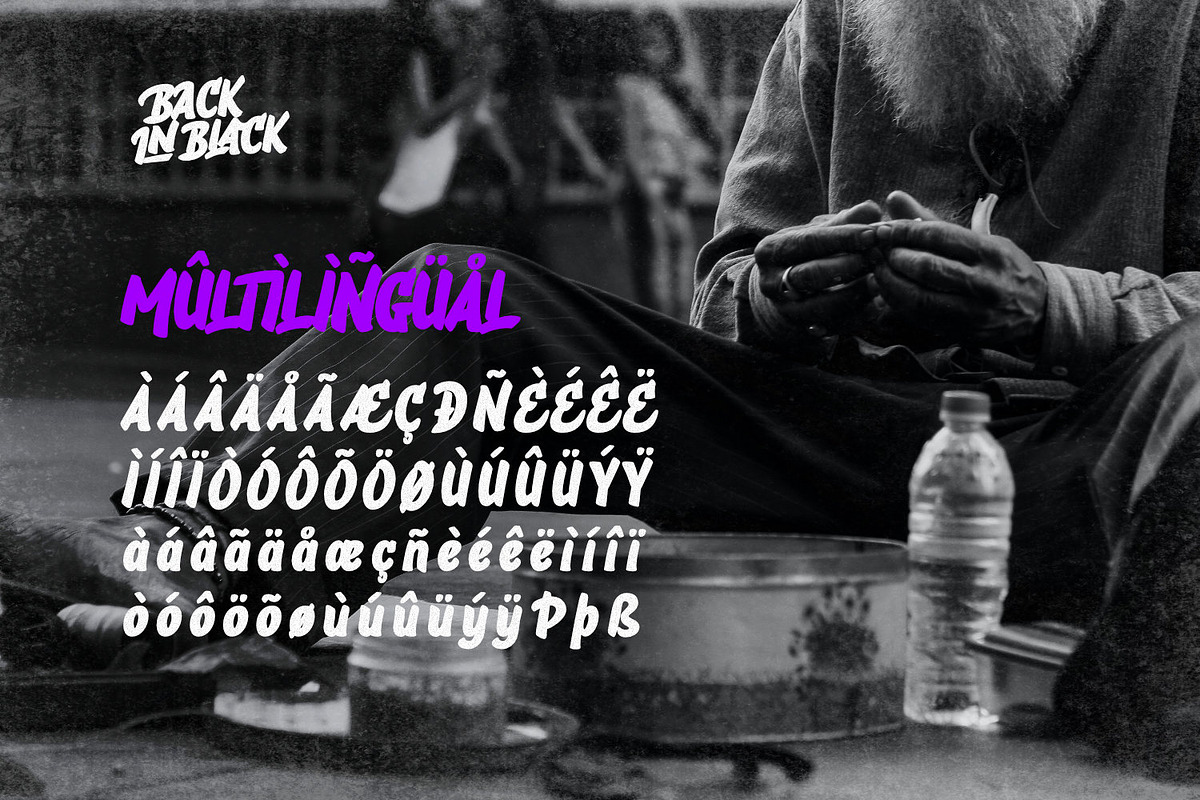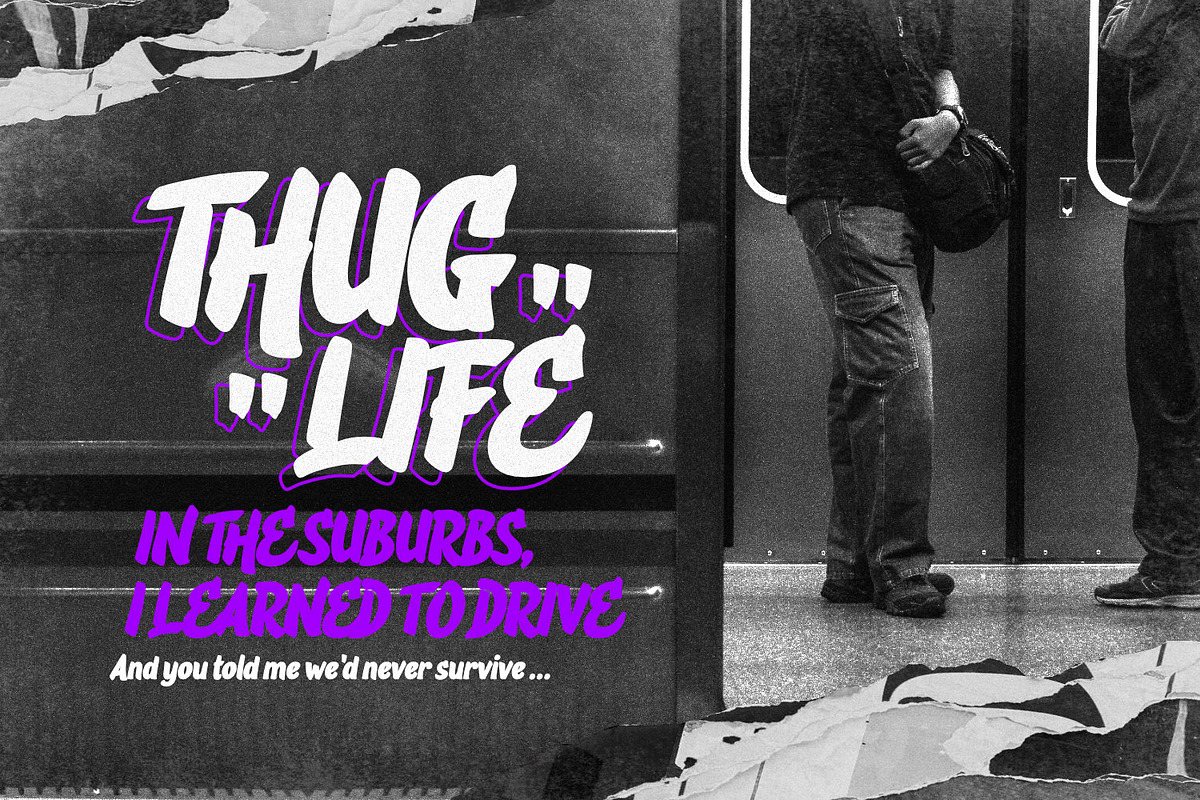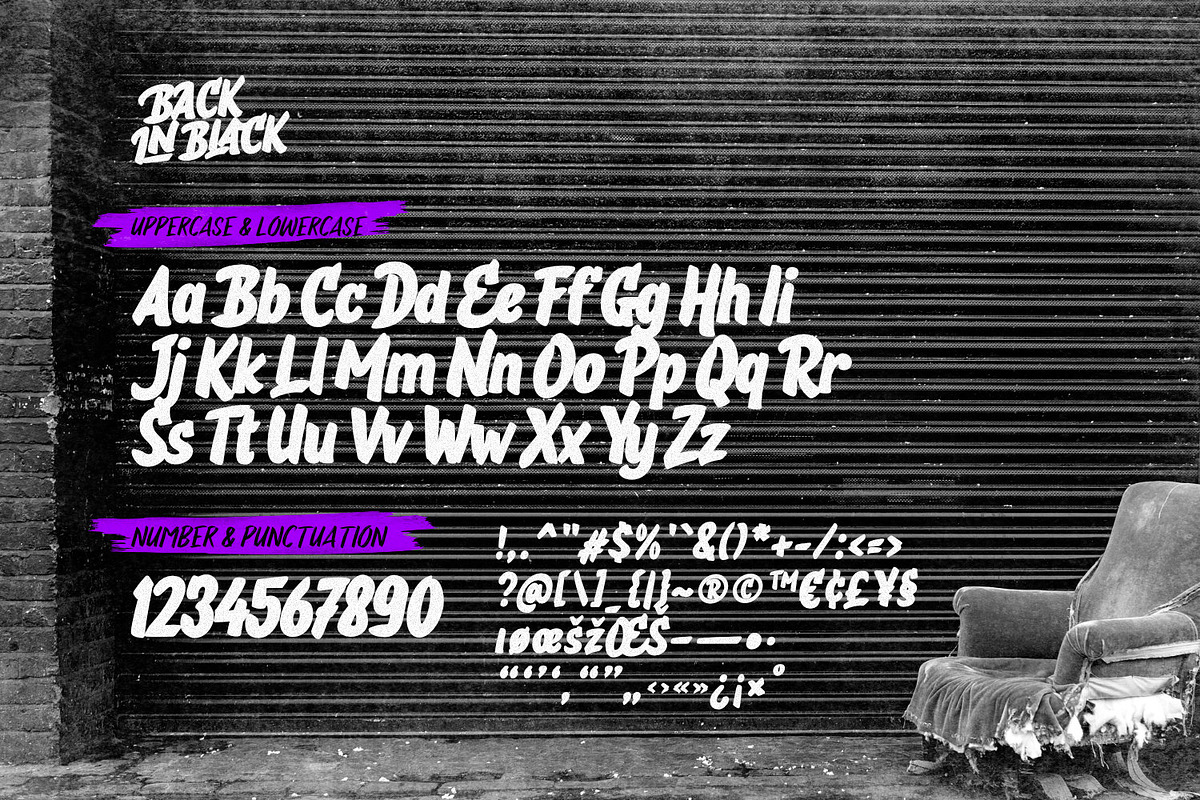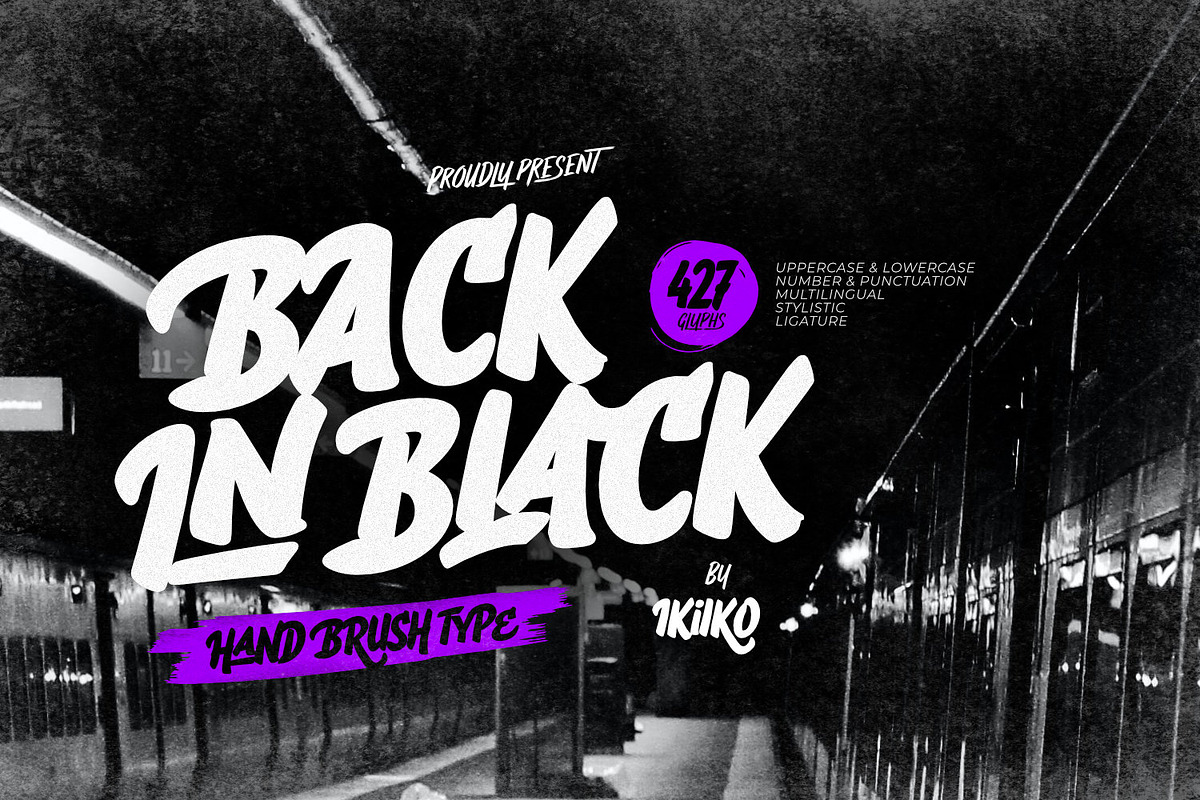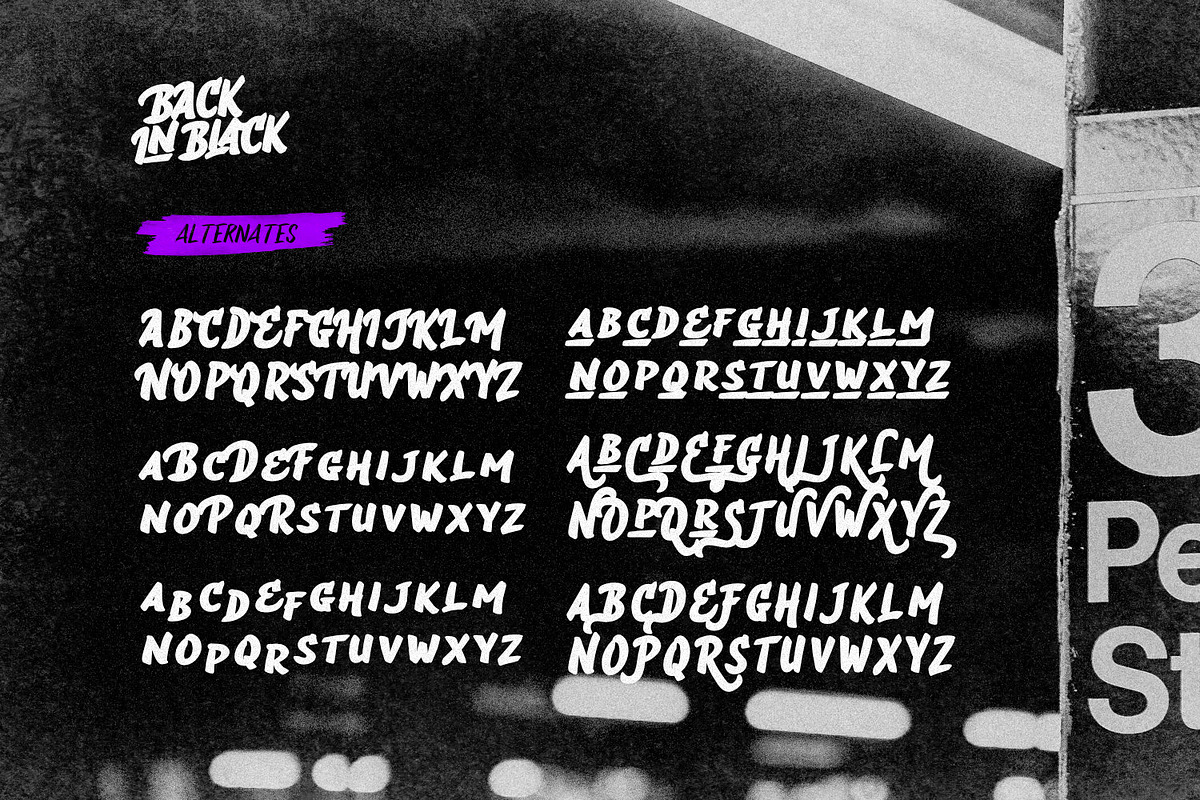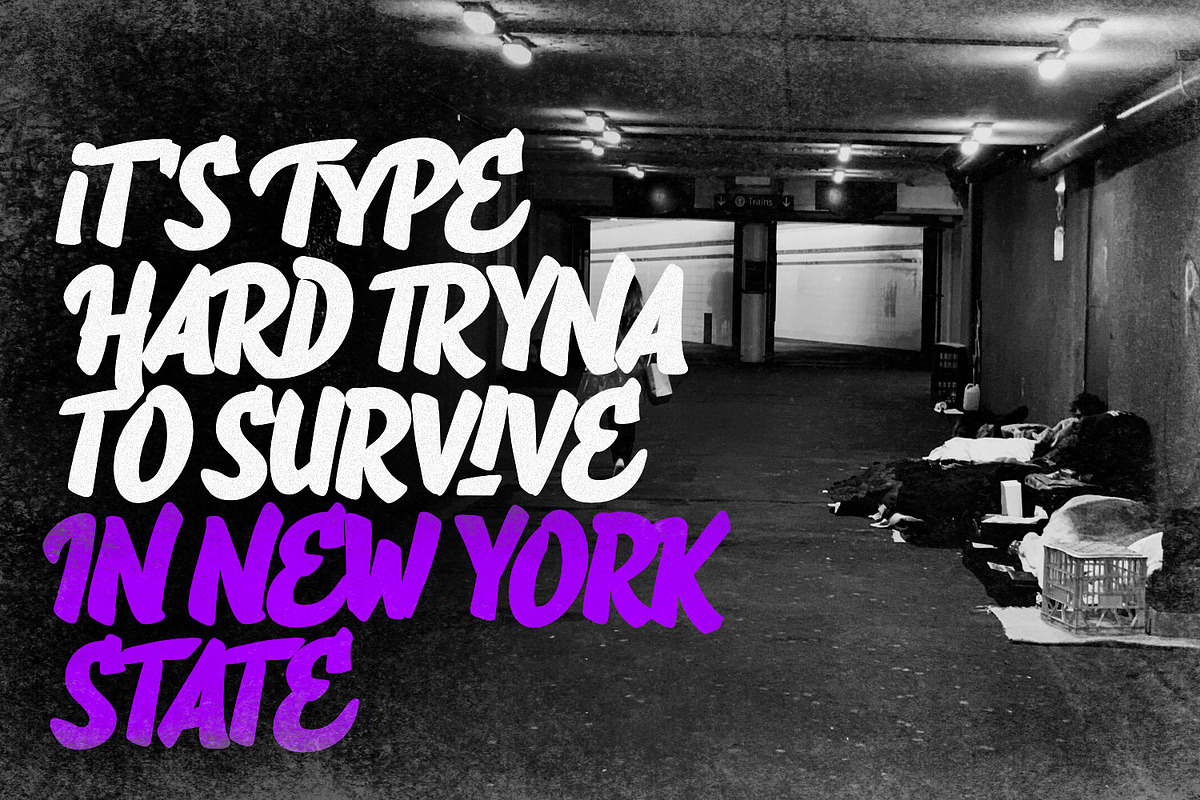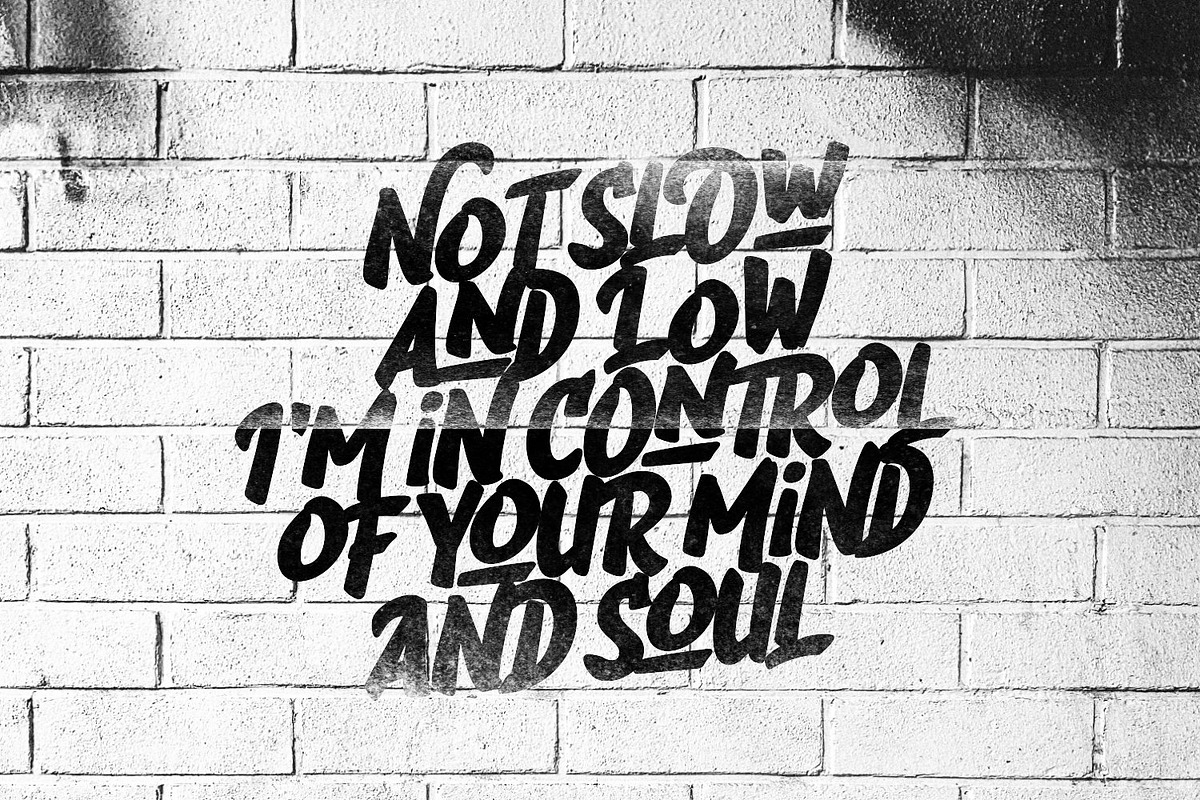
Back In Black - Hand Brush Type
Proudly present Back In Black - Hand Brush Type, created by ikiiko.
Back in Black is a hand-drawn brush font that attempts to reflect the urban vibe of suburban walls. The expressive stroke style of this typeface mimics the look of graffiti and other street art with bold strokes that produce striking, eye-catching graphics.
Large scale text elements work very well with this font. They can be used to produce a wide variety of designs, from playful and whimsical to edgy and rebellious. Additionally, a level of artistic expression unattainable with more conventional fonts is made possible by the strong strokes and asymmetrical shapes.
This type is very suitable for making a poster, magazine layout, book cover, quotes, or simply as a stylish text overlay to any background image.